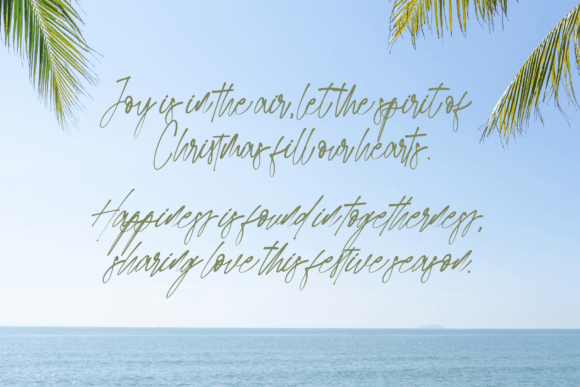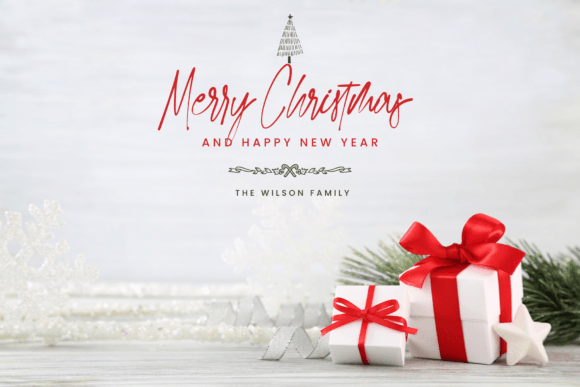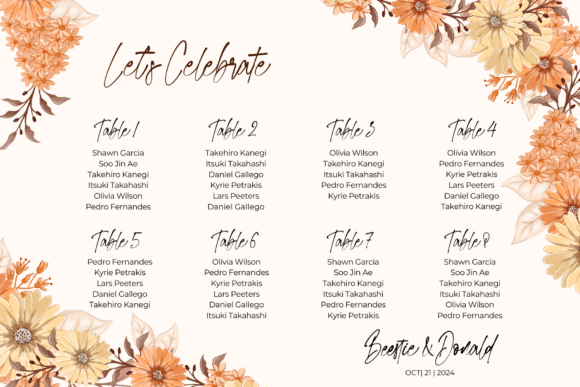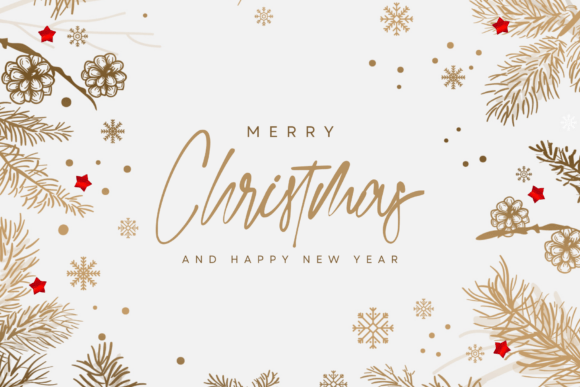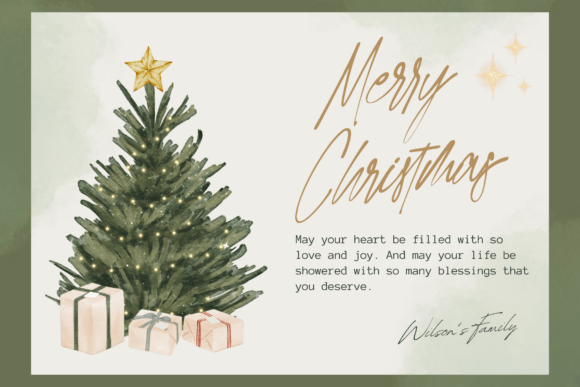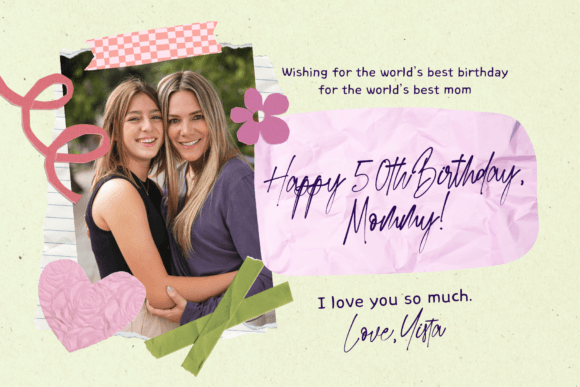
Get Ready to Jingle Your Way to Holiday Cheer with the Perfect Font
It’s that time of the year when creativity flows like hot cocoa on a cold winter’s night. You’re brainstorming ideas for your holiday designs, and the perfect font is just what you need to bring your vision to life. Imagine wrapping your brand’s message in a warm, handwritten script that screams “festive” without being too kitschy. This is where Holiday Doodles Font comes in – a beautifully crafted script font that’s guaranteed to add an artisan touch to your Christmas and New Year design initiatives.
As a designer, you know the value of choosing the right font to convey your message and evoke the right emotions. Holiday Doodles Font is more than just a pretty face; it’s a way to connect with your audience on a deeper level. Its pencil touch feel and whimsical charm make it an impeccable choice for designers looking to add a personal touch to their projects.
Holiday Doodles Font Key Features
- Character Set: The font includes a comprehensive set of characters, including uppercase and lowercase letters, numbers, punctuation marks, and special symbols, making it suitable for various design applications.
- Unique Characteristics: The font’s playful and whimsical design, featuring hand-drawn doodles and festive illustrations, adds a touch of personality and fun to any design project.
Review of Holiday Doodles Font
Overall, I think Holiday Doodles Font is a fun and playful addition to any design project. ✨ It’s perfect for creating festive and whimsical designs that evoke a sense of holiday cheer. The font’s doodle-inspired style is full of character and adds a touch of personality to any text.
One of the things I love about this font is its versatility. ✨ It can be used for a wide range of holiday-themed projects, from greeting cards and invitations to social media graphics and advertisements. The font is also highly customizable, making it easy to adjust the size, color, and style to fit your design needs.
- Playful and festive design style
- Versatile and suitable for various holiday-themed projects
- May be too childish or whimsical for some design projects
- Not suitable for formal or professional designs
- Some characters may be difficult to read at smaller font sizes
Overall, I think Holiday Doodles Font is a great choice for designers who want to add a playful touch to their holiday designs. While it may not be suitable for every project, it’s a fun and versatile font that can add a lot of character to your designs. ⚠️ Just be aware of its limitations and use it thoughtfully to get the best results.
Holiday Doodles Font is perfect for creating festive and playful designs for holidays like Christmas, Halloween, and Easter. You can use it for social media graphics, greeting cards, and party invitations.
Tips for Getting the Most Out of it
For the best results, pair Holiday Doodles Font with bold and bright colors. You can also experiment with different font sizes and styles to create a visually appealing design. Don’t forget to add some festive graphics and icons to complete the look.